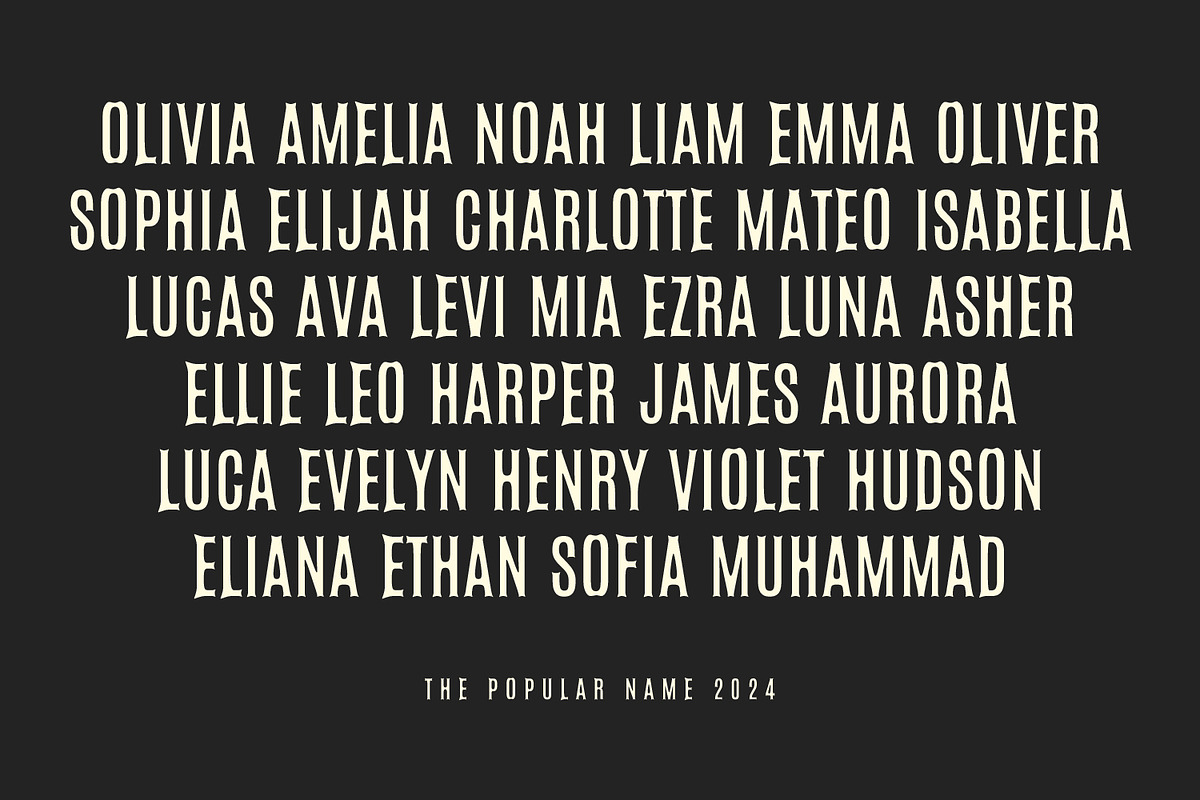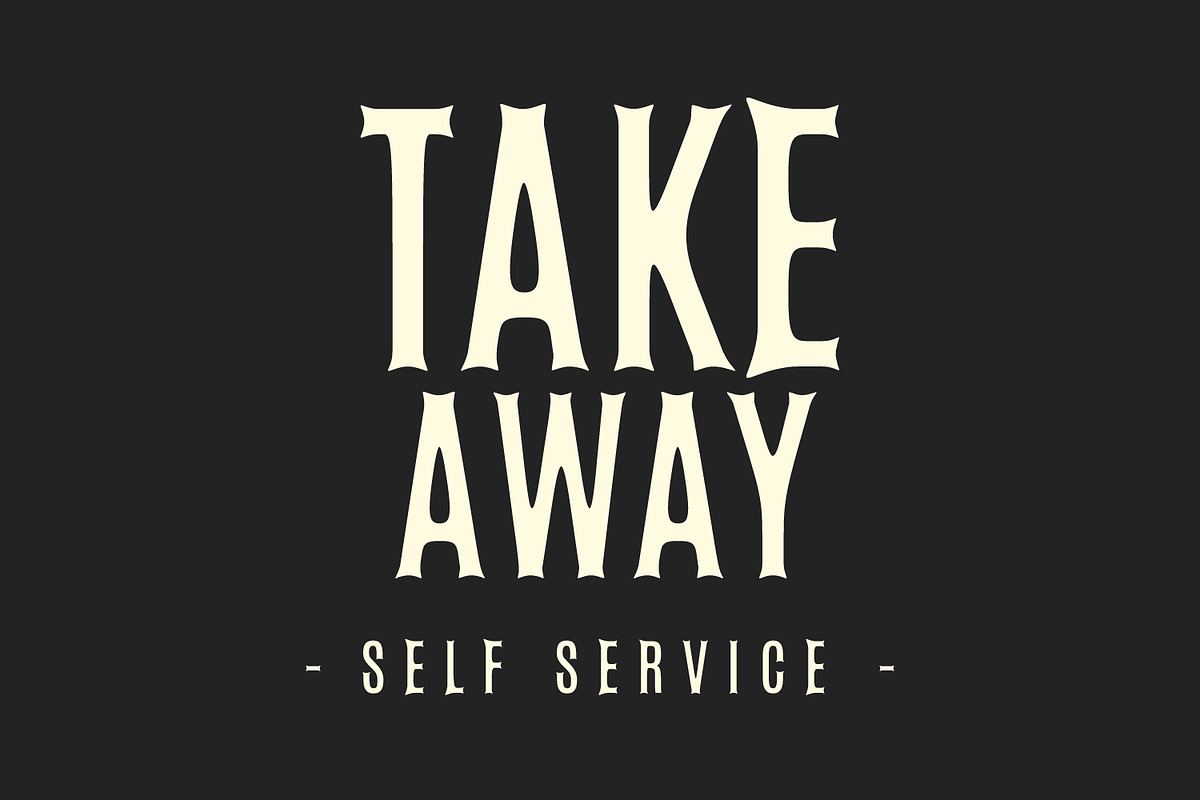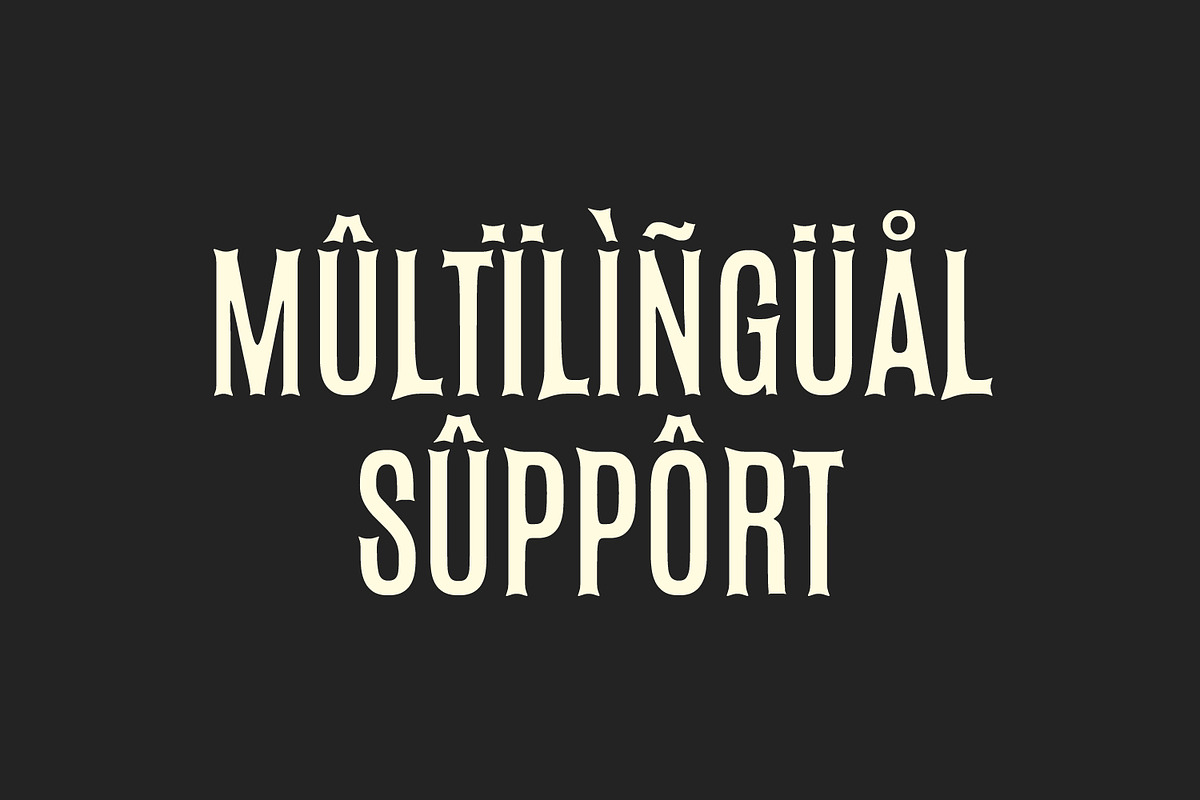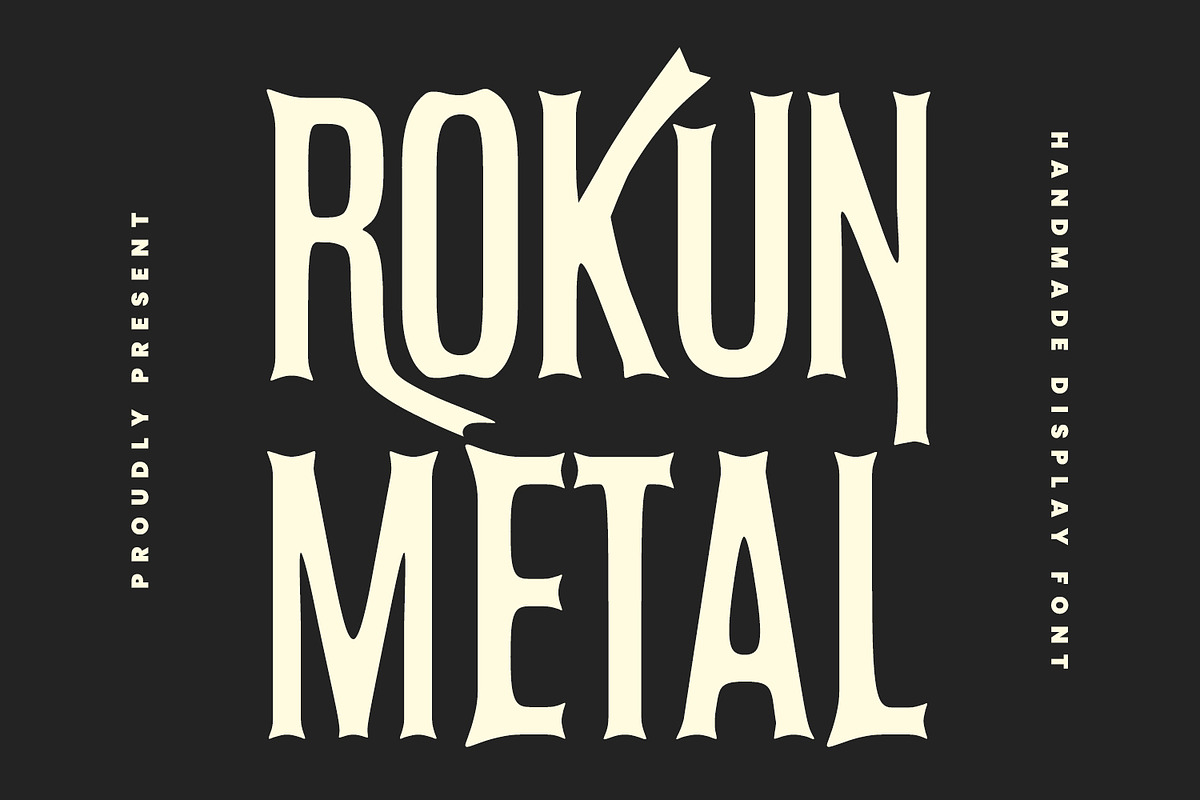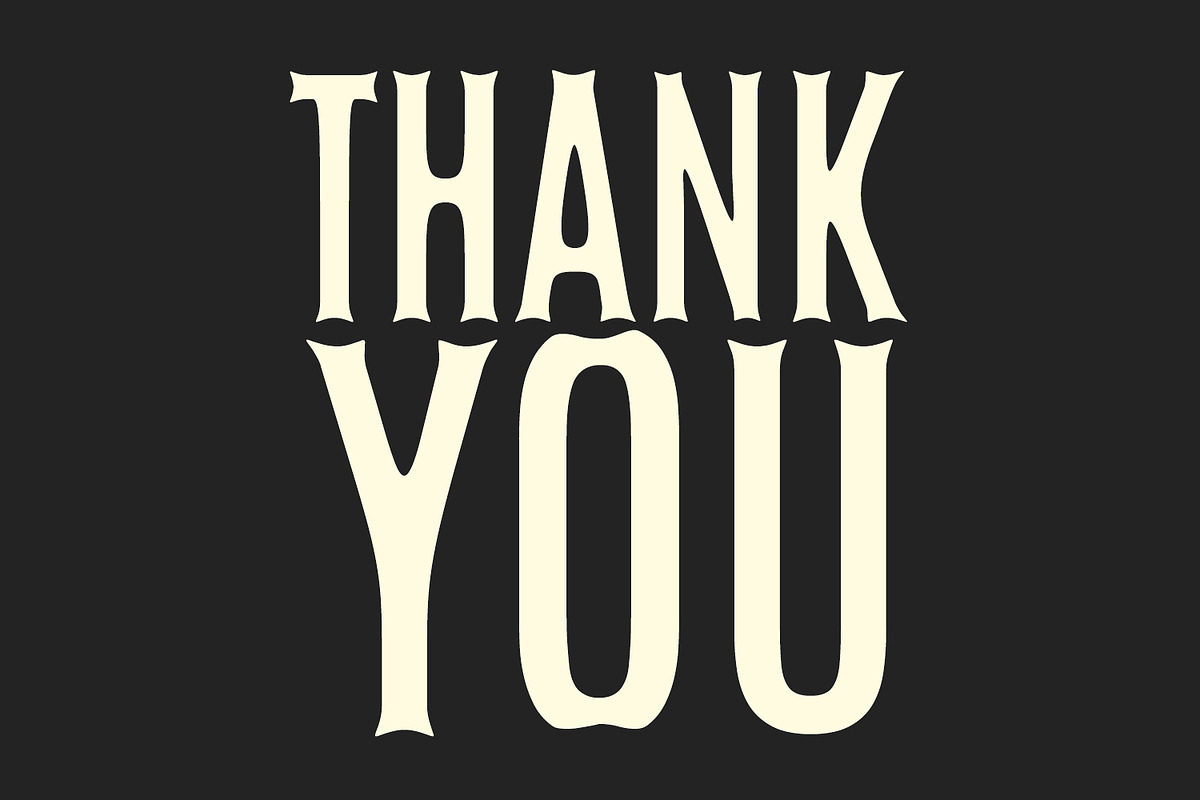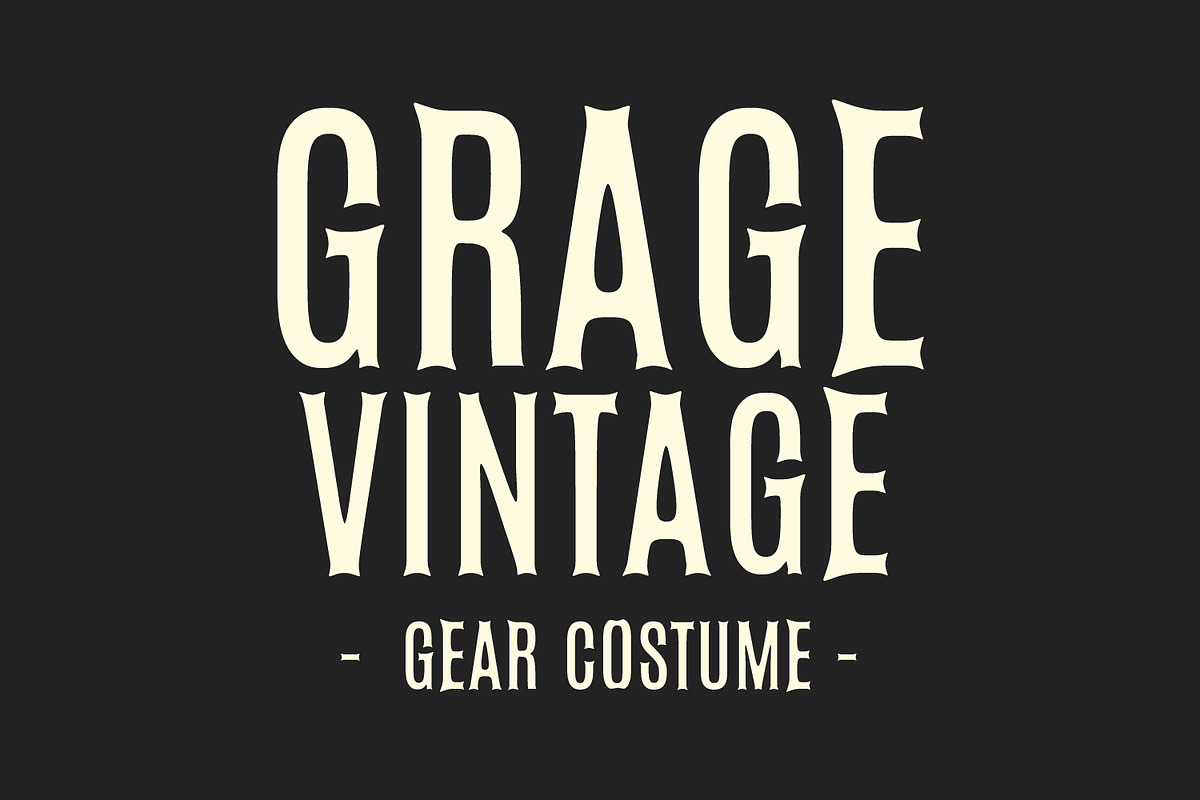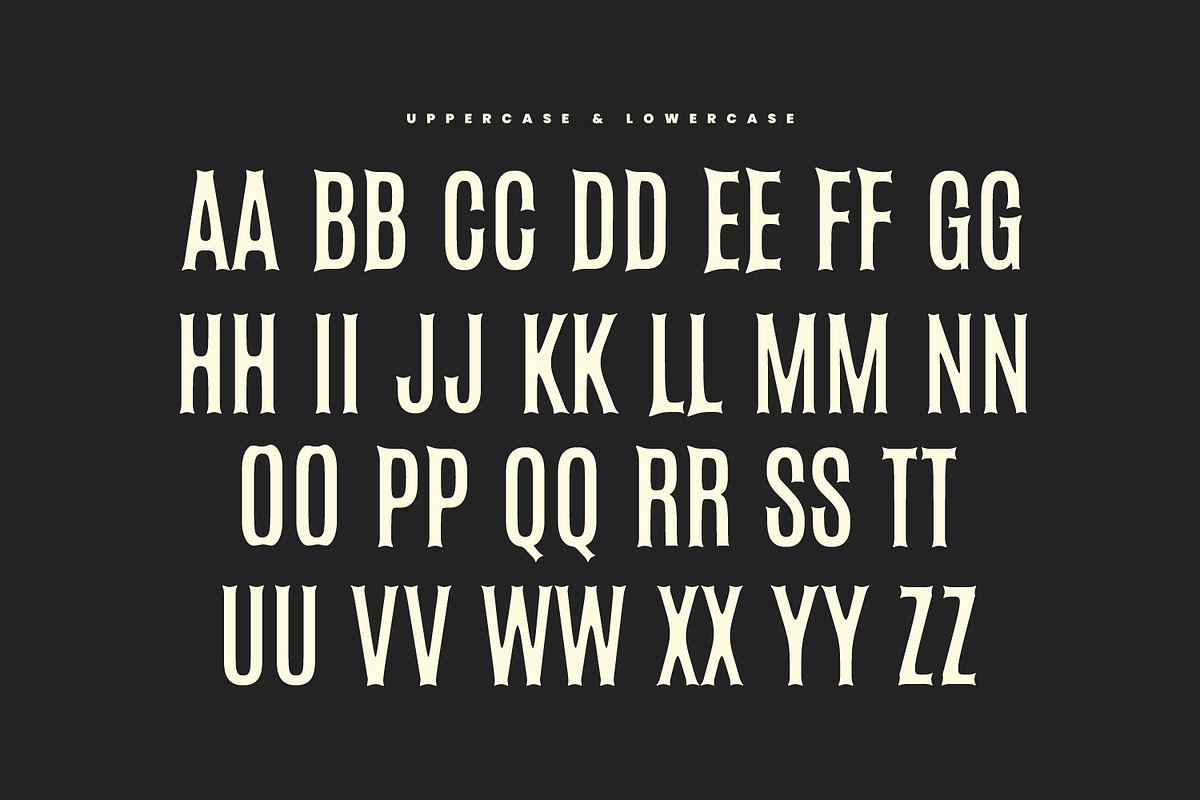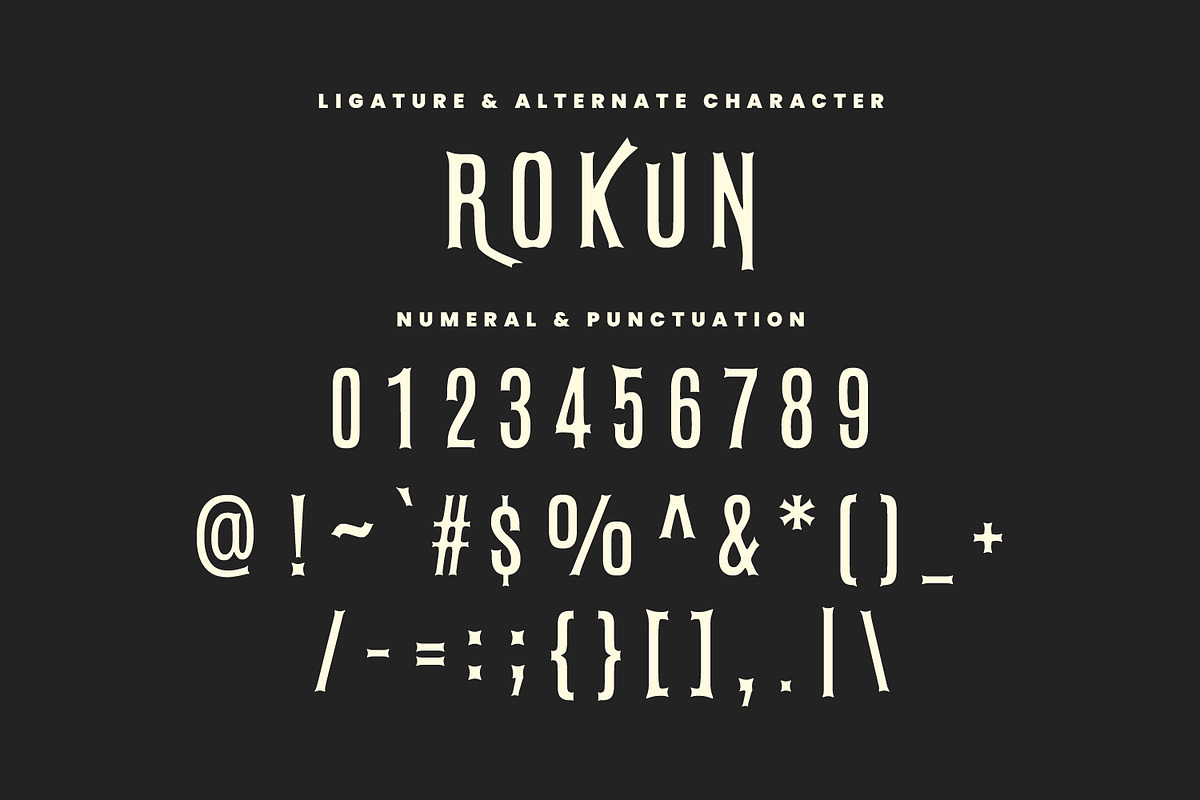
Rokun Metal Display Font
Rokun Metal is a casual handwritten sans display font. With bold stroke, fun character with a bit of alternates. To give you an extra creative work. Rokun Metal font support multilingual language. This font is good for logo design, Social media, Movie Titles, Books Titles, a short text even a long text letter and good for your secondary text font with sans or serif. Make a stunning work with Rokun Metal font.